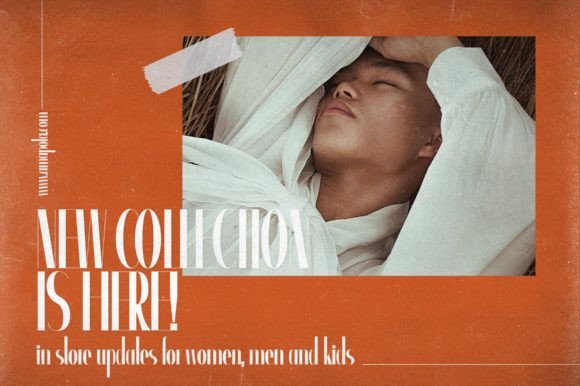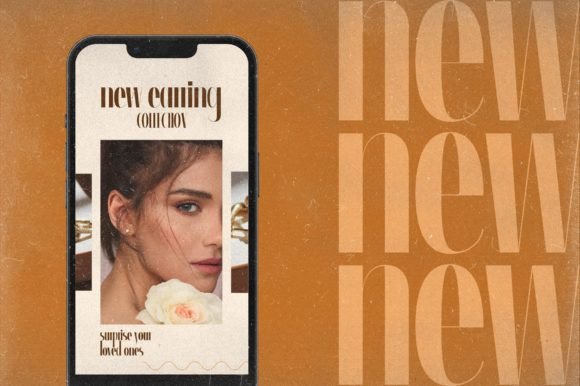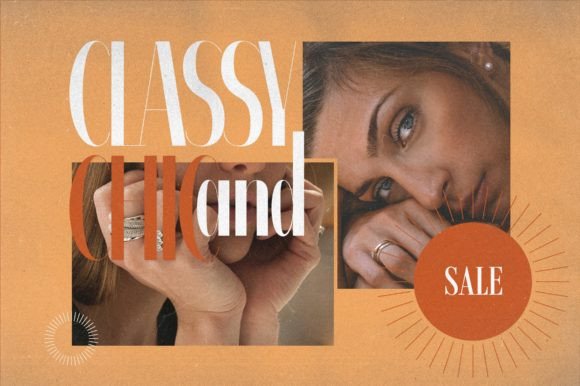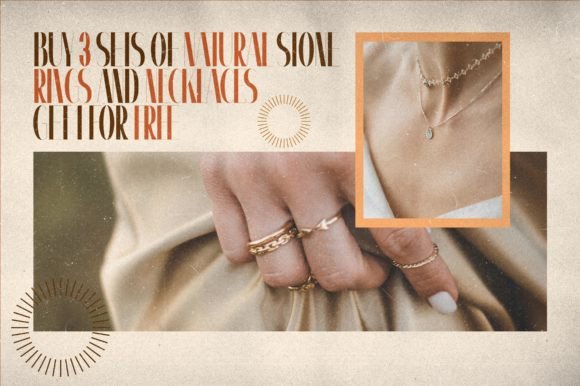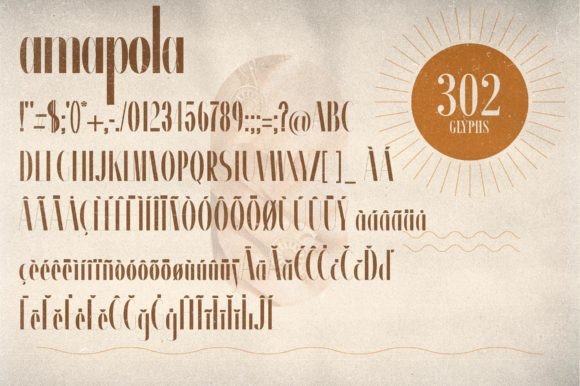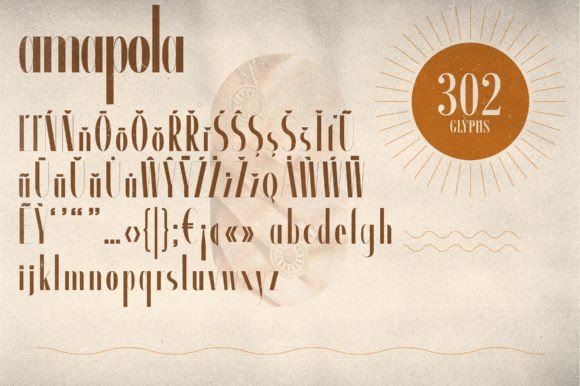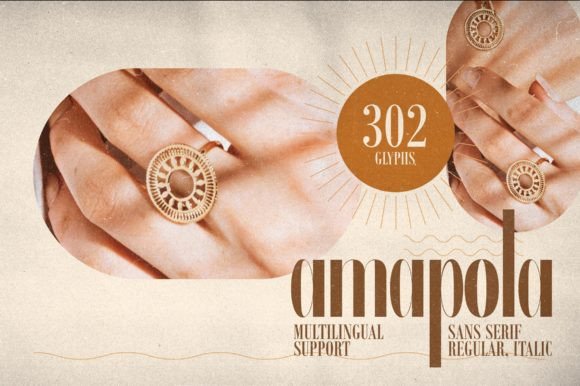
Amapola Font: Elevate Your Designs with Elegance and Sophistication
In the world of typography, fonts play a crucial role in conveying the tone and aesthetic of a design. For designers and crafters seeking a typeface that exudes elegance, romance, and chicness, Amapola Font is an excellent choice. This sans serif condensed typeface has gained popularity for its versatility and stylish appearance, making it perfect for a wide range of design projects.
What is Amapola Font?
Amapola Font is a carefully crafted typeface designed to meet the needs of designers who seek a sophisticated and refined look. Its glyphs construction is meticulously designed to render it a valid choice for various design applications, including elegant posters, magazine covers, luxurious banners, fashion ads, social media banners, and more.
Key Features of Amapola Font
- Chic and Romantic: Amapola Font boasts a chic and romantic appearance, making it perfect for designs that require a touch of elegance and sophistication.
- Elegant Sans Serif: The font features a sans serif design, which provides a clean and modern look that’s ideal for a wide range of design applications.
- Condensed Style: The condensed style of Amapola Font makes it perfect for designs where space is limited, such as in headlines, titles, and short paragraphs.
- Versatile: Amapola Font is a versatile typeface that can be used for various design projects, from bohemian-style designs to high-end packaging.
Design Applications for Amapola Font
Amapola Font is an excellent choice for a wide range of design applications, including:
- Elegant Posters: Create stunning posters with Amapola Font that exude elegance and sophistication.
- Magazine Covers: Use Amapola Font to create eye-catching magazine covers that grab attention.
- Luxurious Banners: Design luxurious banners with Amapola Font that convey a sense of high-end quality.
- Fashion Ads: Amapola Font is perfect for fashion ads that require a chic and sophisticated look.
- Social Media Banners: Create engaging social media banners with Amapola Font that stand out from the crowd.
- Bohemian Style: Amapola Font is also suitable for bohemian-style designs, adding a touch of elegance and sophistication to your creations.
- Gallery Products: Use Amapola Font to create stylish and elegant gallery product designs.
- Cosmetics and Perfumes: Amapola Font is perfect for designing packaging for cosmetics and perfumes that require a luxurious look.
- High-End Packaging: Create high-end packaging designs with Amapola Font that convey a sense of luxury and sophistication.
Why Choose Amapola Font?
Amapola Font offers several benefits that make it an excellent choice for designers and crafters:
- Unique and Distinctive: Amapola Font has a unique and distinctive appearance that sets it apart from other typefaces.
- Customizable: Amapola Font can be customized to fit your design needs, allowing you to experiment with different styles and effects.
In conclusion, Amapola Font is a versatile and stylish typeface that’s perfect for designers and crafters seeking to add a touch of elegance and sophistication to their designs. Its chic and romantic appearance, combined with its condensed style and sans serif design, make it an excellent choice for a wide range of design applications. Whether you’re designing elegant posters, magazine covers, luxurious banners, or high-end packaging, Amapola Font is sure to elevate your designs to the next level.